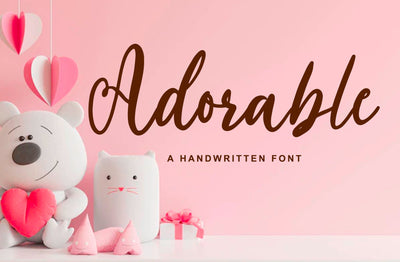
Adorable - Handwritten font
Adorable is a sweet and cute handwritten font. Fall in love with its incredibly versatile style and use it to create gorgeous wedding invitations, t-shirt printing, beautiful stationary art, eye-catching social media posts, and much more!